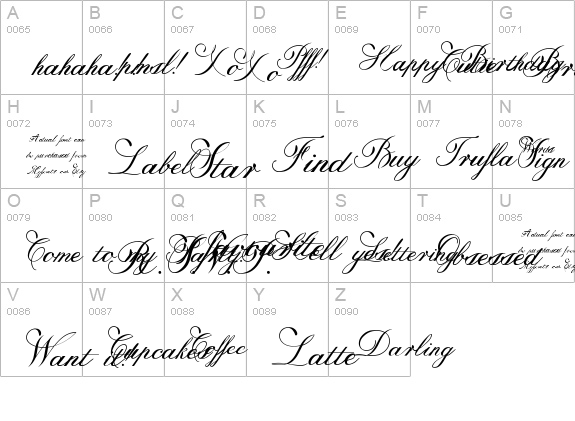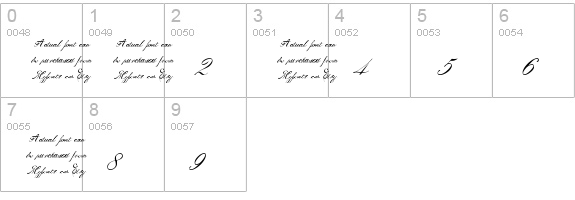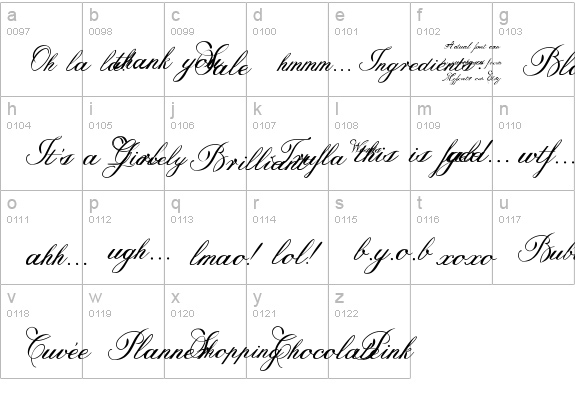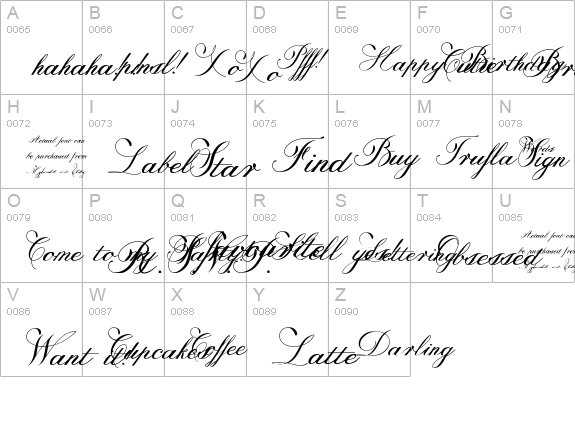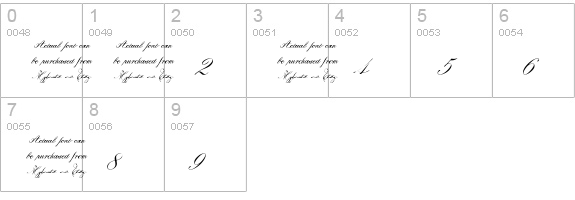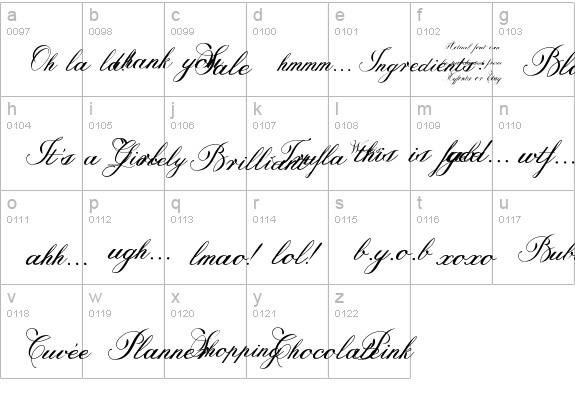
Trufla Words Font Details
Introducing Trufla Words, a beautifully crafted font that effortlessly combines elegance and playfulness. This unique typeface is perfect for adding a touch of charm to your design projects. Whether you're creating eye-catching logos, stunning advertisements, or captivating social media posts, Trufla Words is sure to make a lasting impression. With its clean lines and stylish curves, Trufla Words exudes a sense of sophistication while maintaining a youthful and approachable vibe. Its versatility allows it to seamlessly adapt to any creative vision, whether you're going for a modern and minimalistic look or a whimsical and artistic feel. But what sets Trufla Words apart is not only its exceptional design but also its accessibility. We believe that creativity should be free, which is why Trufla Words is freely available to download at FontsMarket.com. Yes, you read that right - this incredible font can be yours without spending a single penny. By offering Trufla Words for free, we hope to empower designers, artists, and enthusiasts to explore their imagination without any constraints. We want to encourage the creation of stunning visuals that leave a lasting impact, without the worry of budget limitations. So go ahead, unlock your creative potential and let Trufla Words be your secret weapon in enhancing your designs. Download it now at FontsMarket.com and experience the magic of this captivating font. With Trufla Words, the possibilities are endless, and creativity knows no bounds.